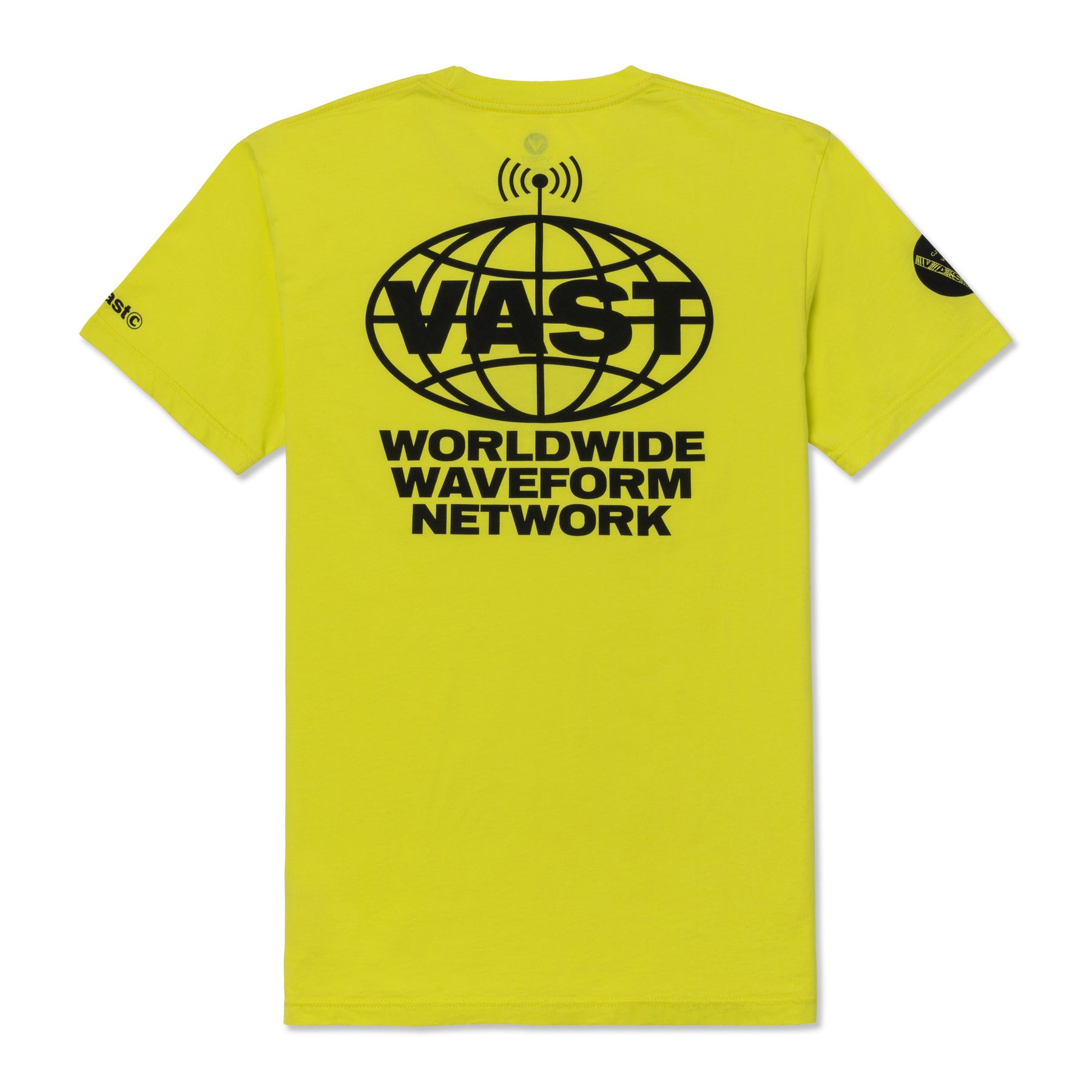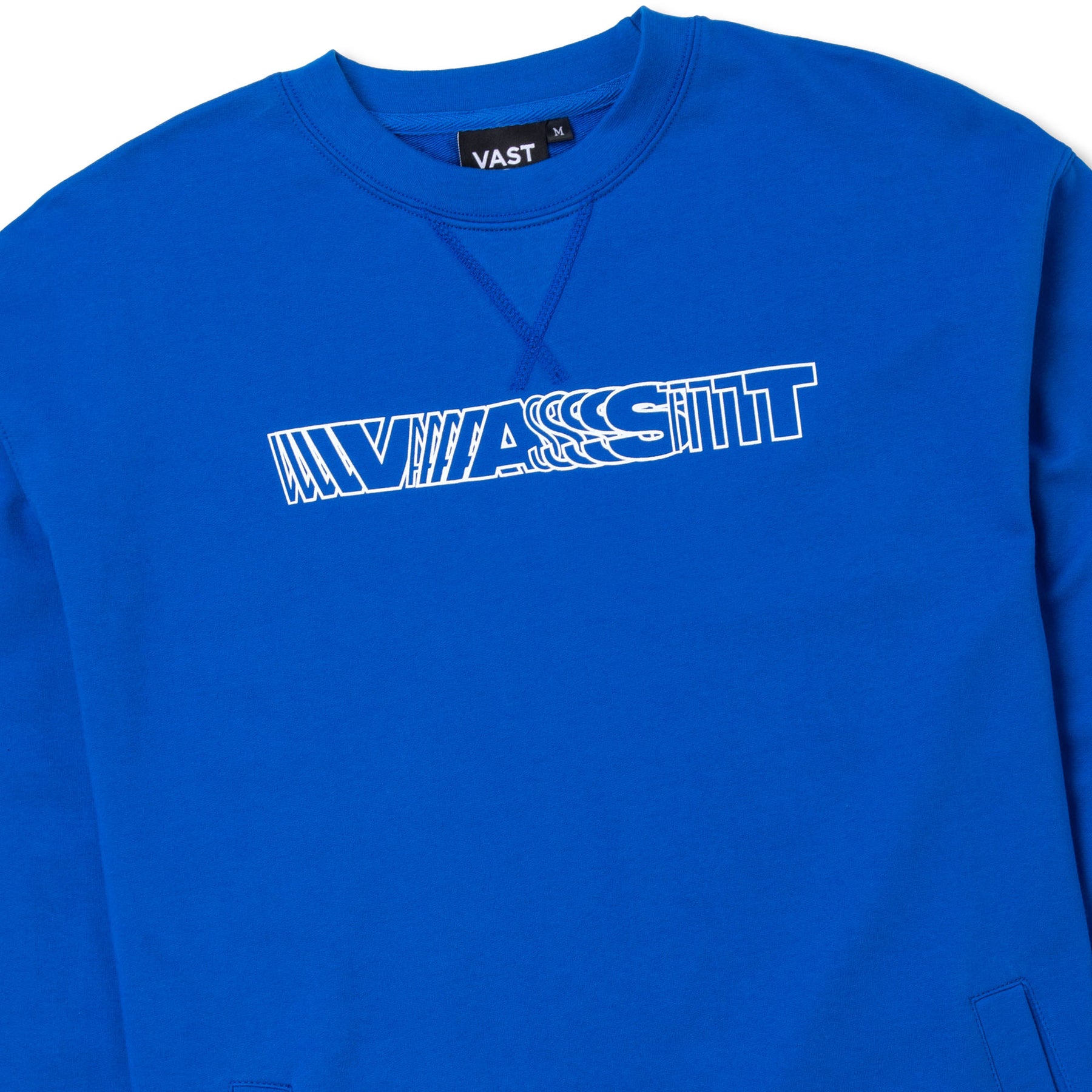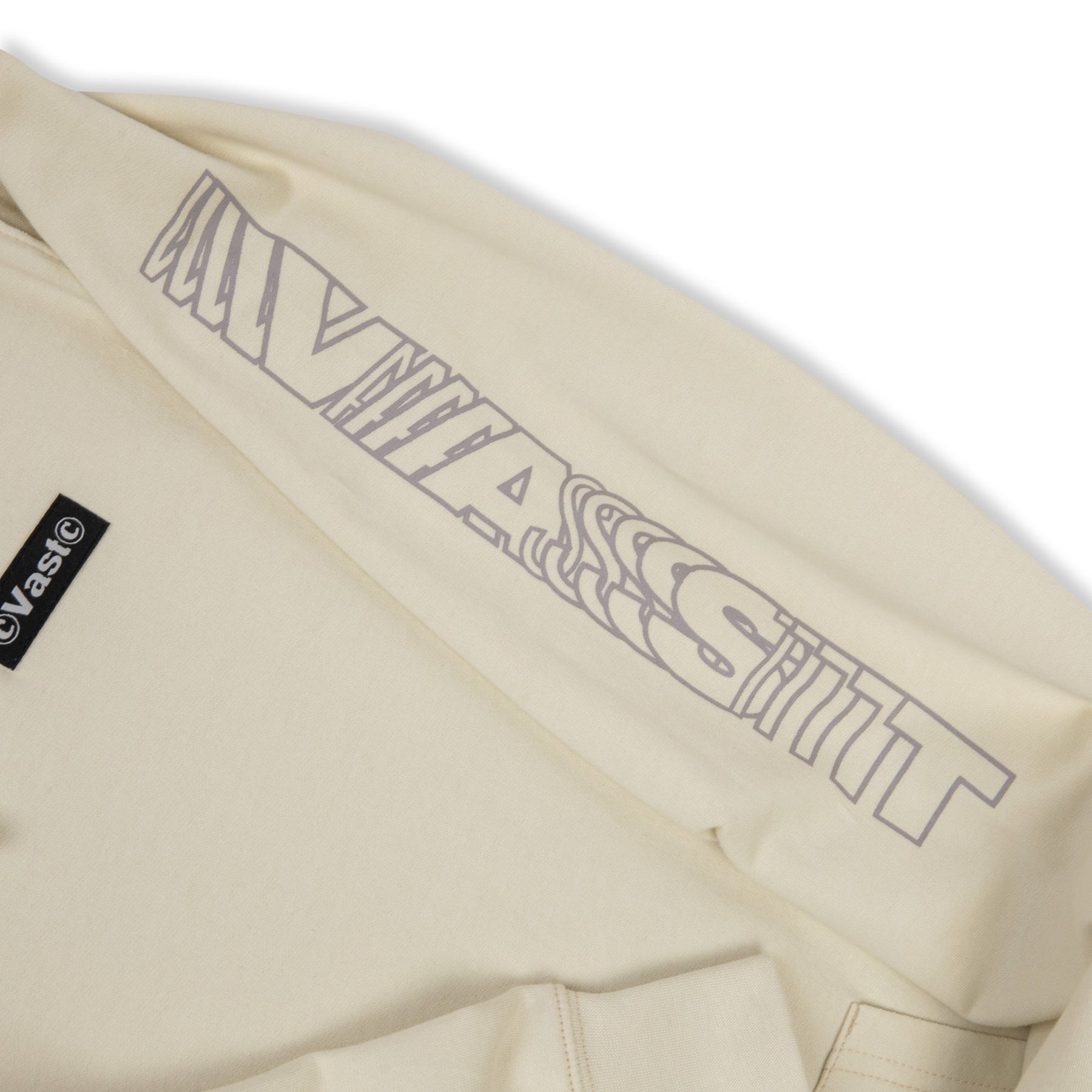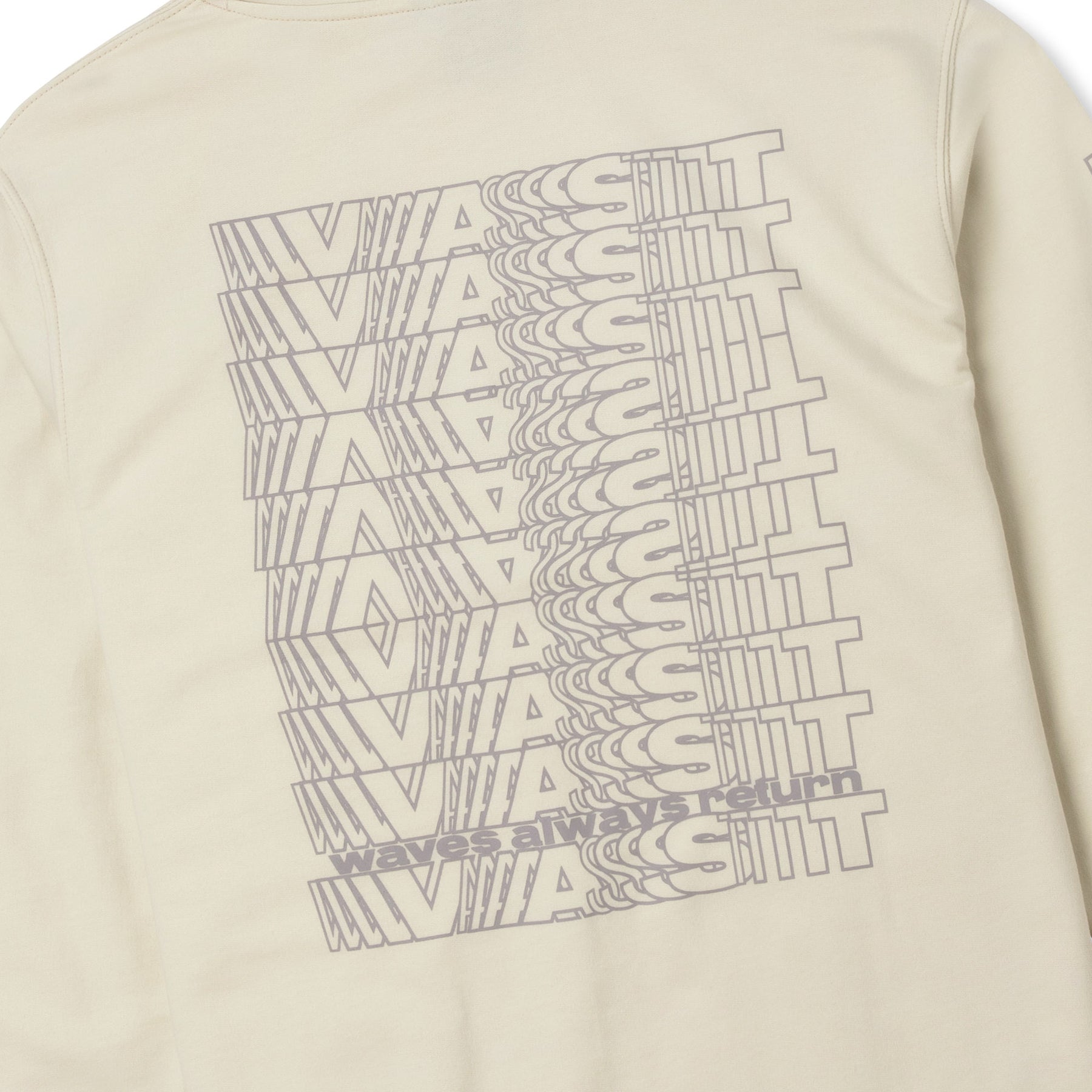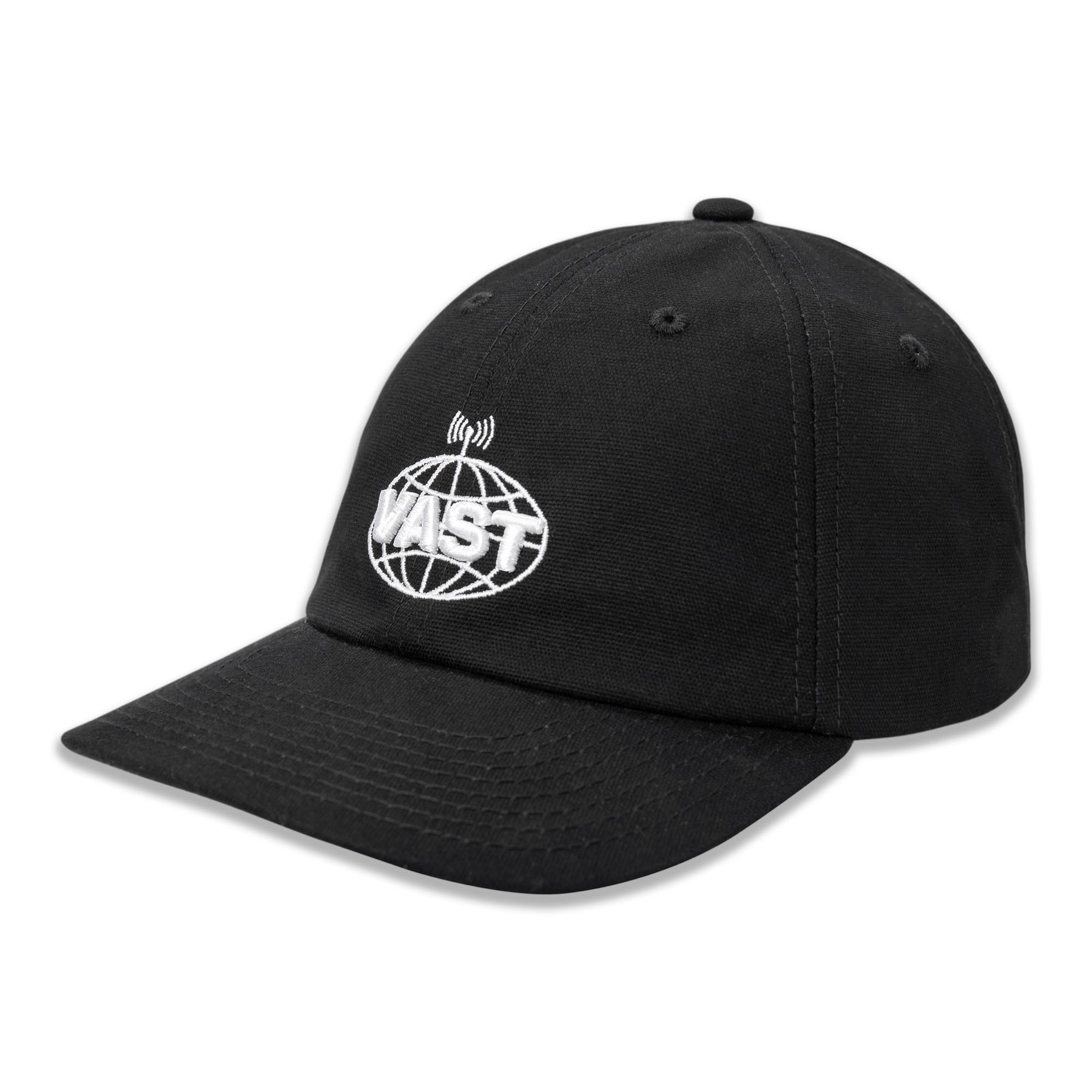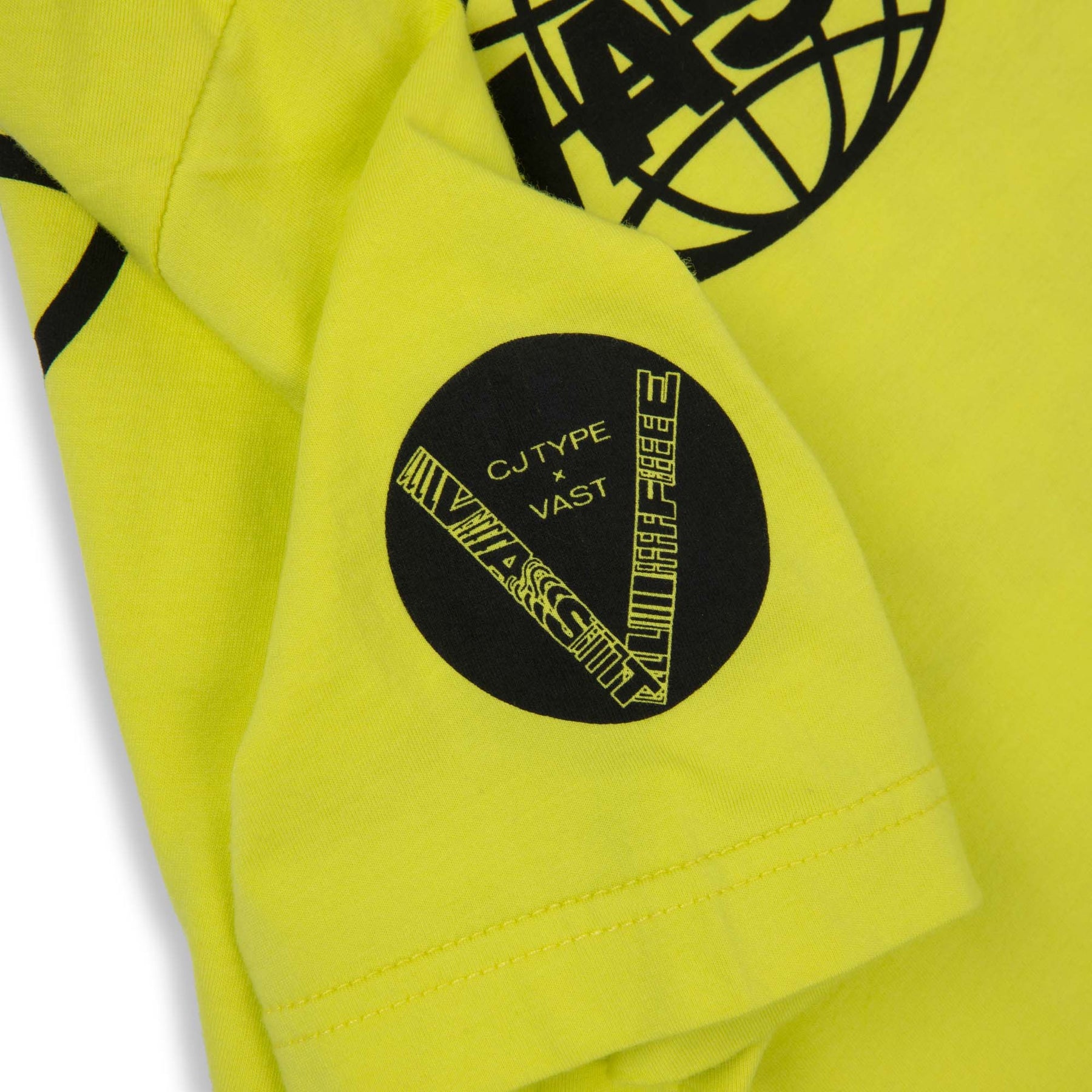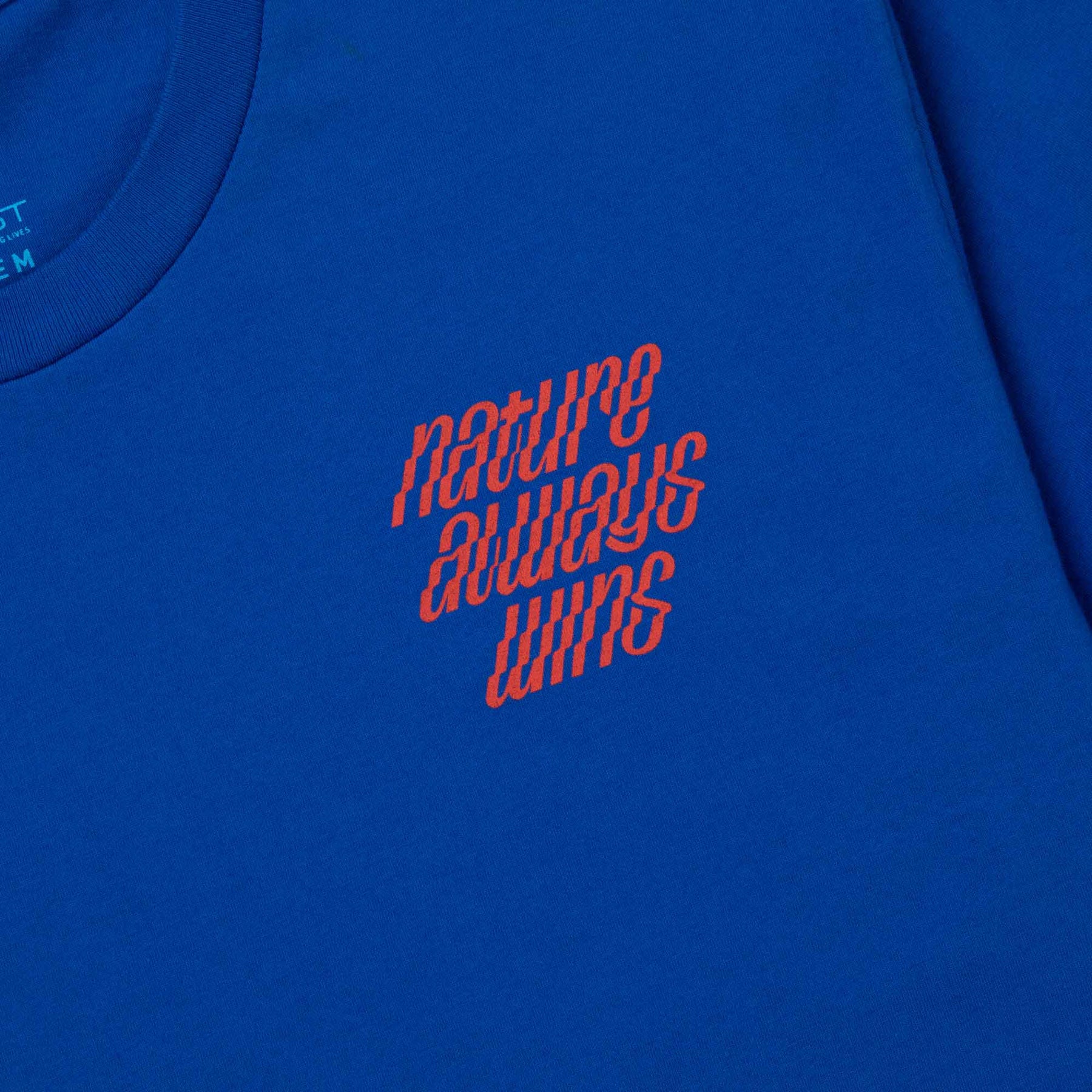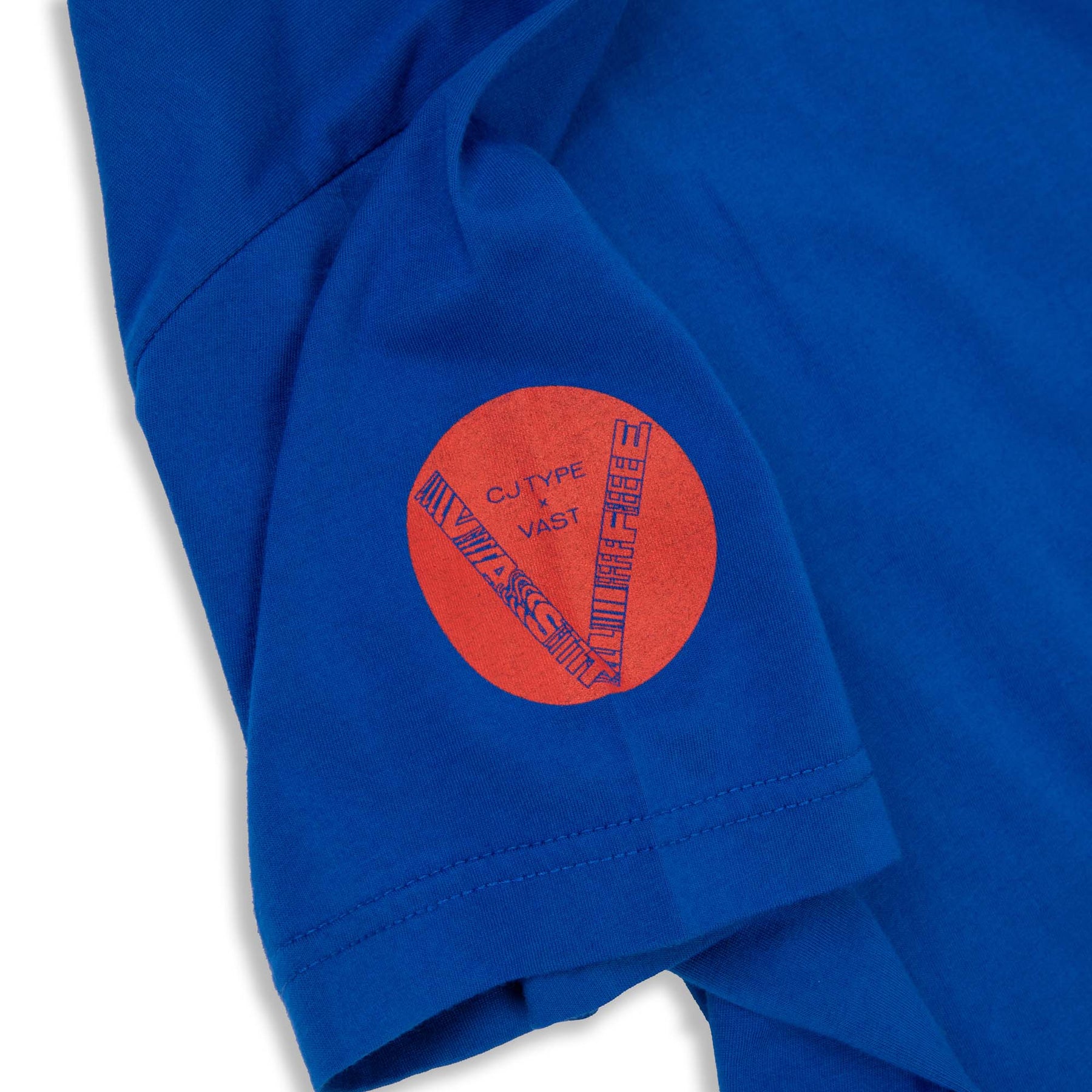
CJ Type Vast capsule collection
by CJ Type
CJ Type × Vast capsule collection. The collection was designed around waves in their many forms–from audio waves, to light waves, to ocean waves–how they connect us all, and how they can be communicated typographically.
Typefaces used: Pennypacker and Velzyland, along with custom lettering. The "Nature Always Wins" graphic was the first appearance of the typeface Velzyland.